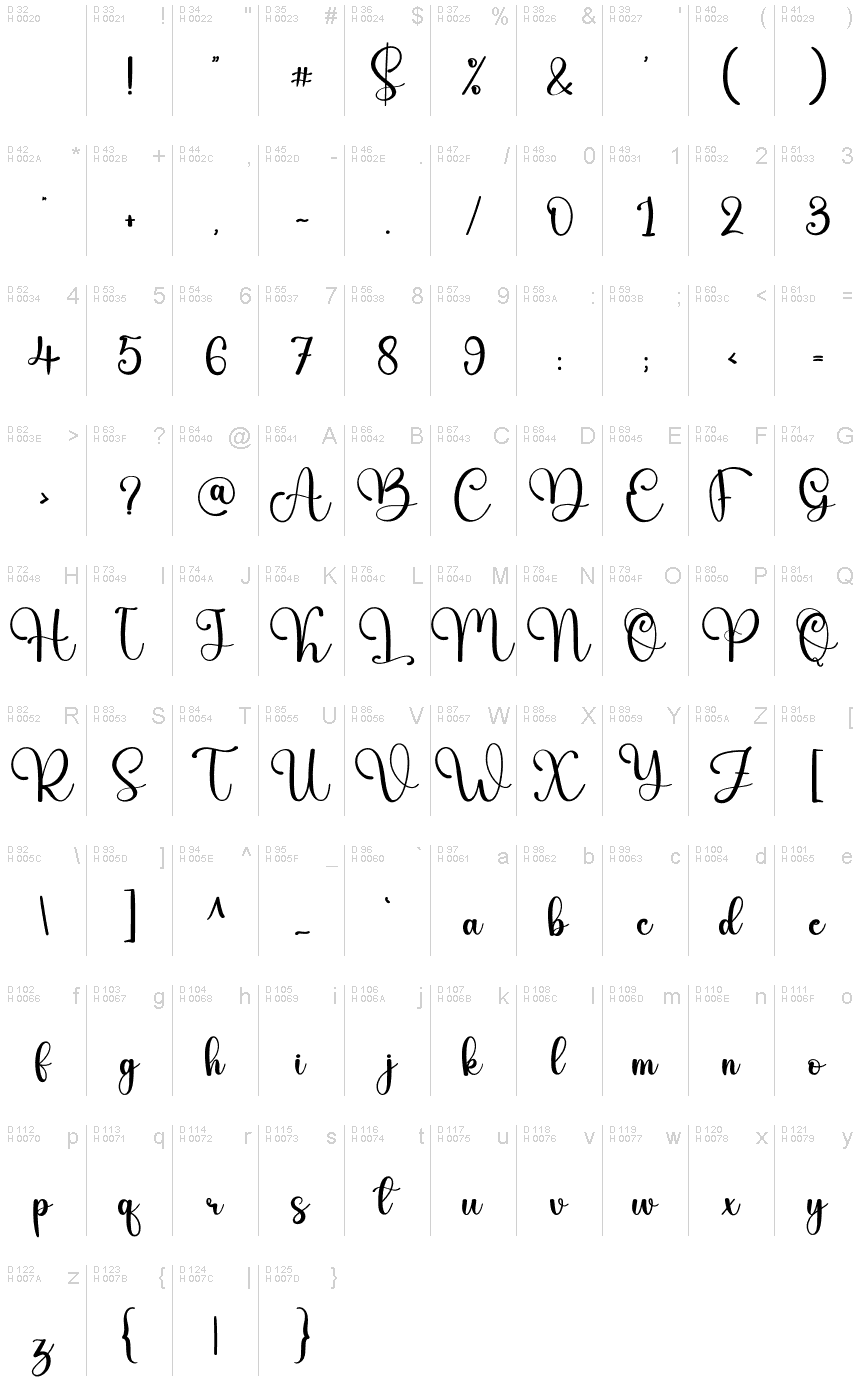
Delive
Delive, a mesmerizing calligraphy font designed by Harlek Studio, effortlessly captures elegance and sophistication.
With its semi-light weight, Delive exudes a delicate charm that is perfect for wedding invitations, feminine branding projects, and luxury beauty packaging. Its graceful strokes and intricate details add a touch of refinement to any design. Delive's versatility shines through in editorial layouts, fashion magazines, or sophisticated blog headers.
Whether you're aiming for timeless classic or contemporary chic, this enchanting font will elevate your projects to new levels of beauty and grace.